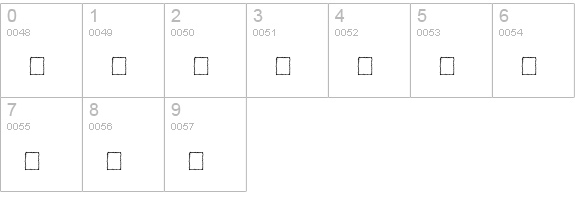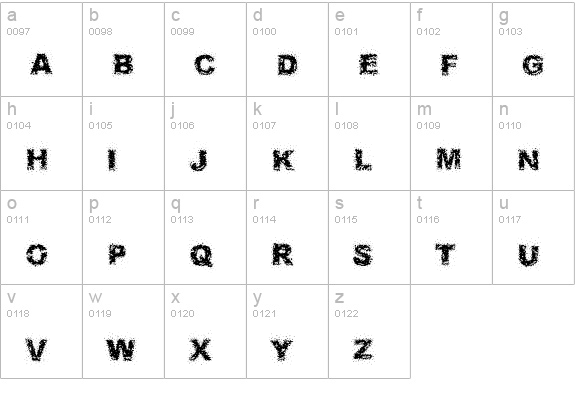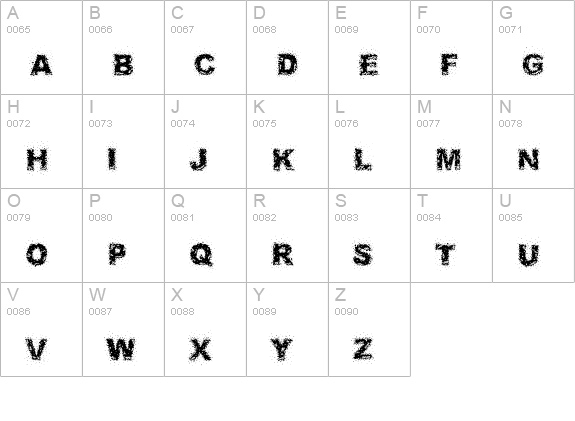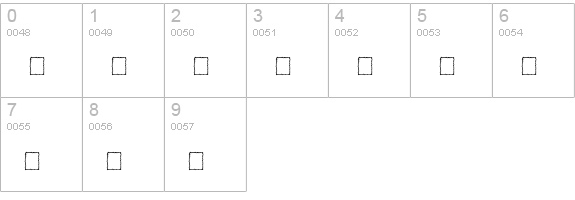
Fuzzed Font Details
Fuzzed font is a fun and quirky typeface that adds a touch of playfulness to your designs. With its irregular and fuzzy edges, this font exudes a unique charm that is perfect for projects seeking a whimsical and creative flair. Whether you're designing invitations, posters, or branding materials, Fuzzed font will surely make your text stand out. The best part about Fuzzed font is that it is completely free! You can easily download this font from FontsMarket.com and start using it in your projects right away. Don't miss out on this fantastic opportunity to add a touch of personality to your designs with the delightful Fuzzed font. Download it now and let your creativity shine!